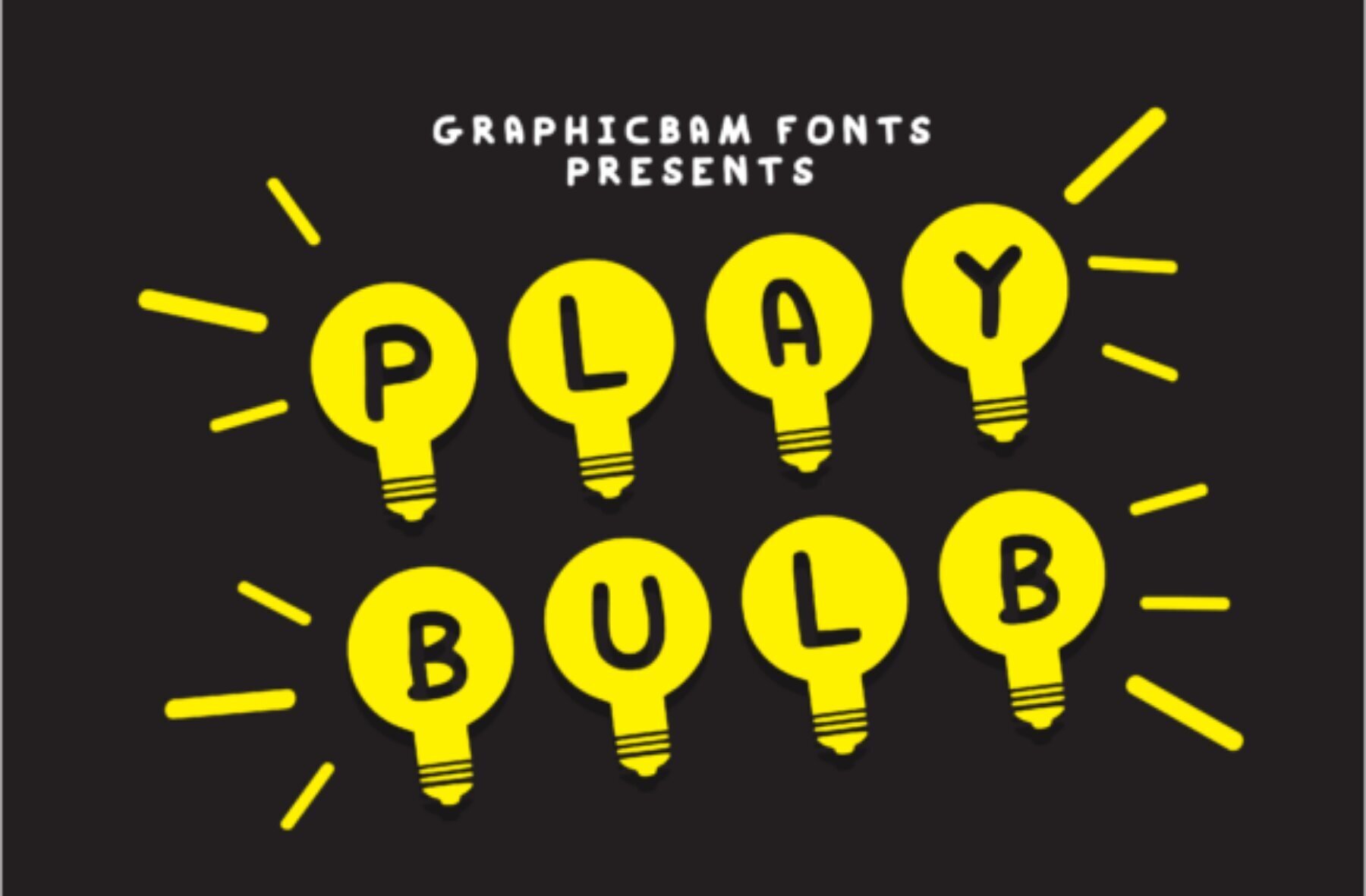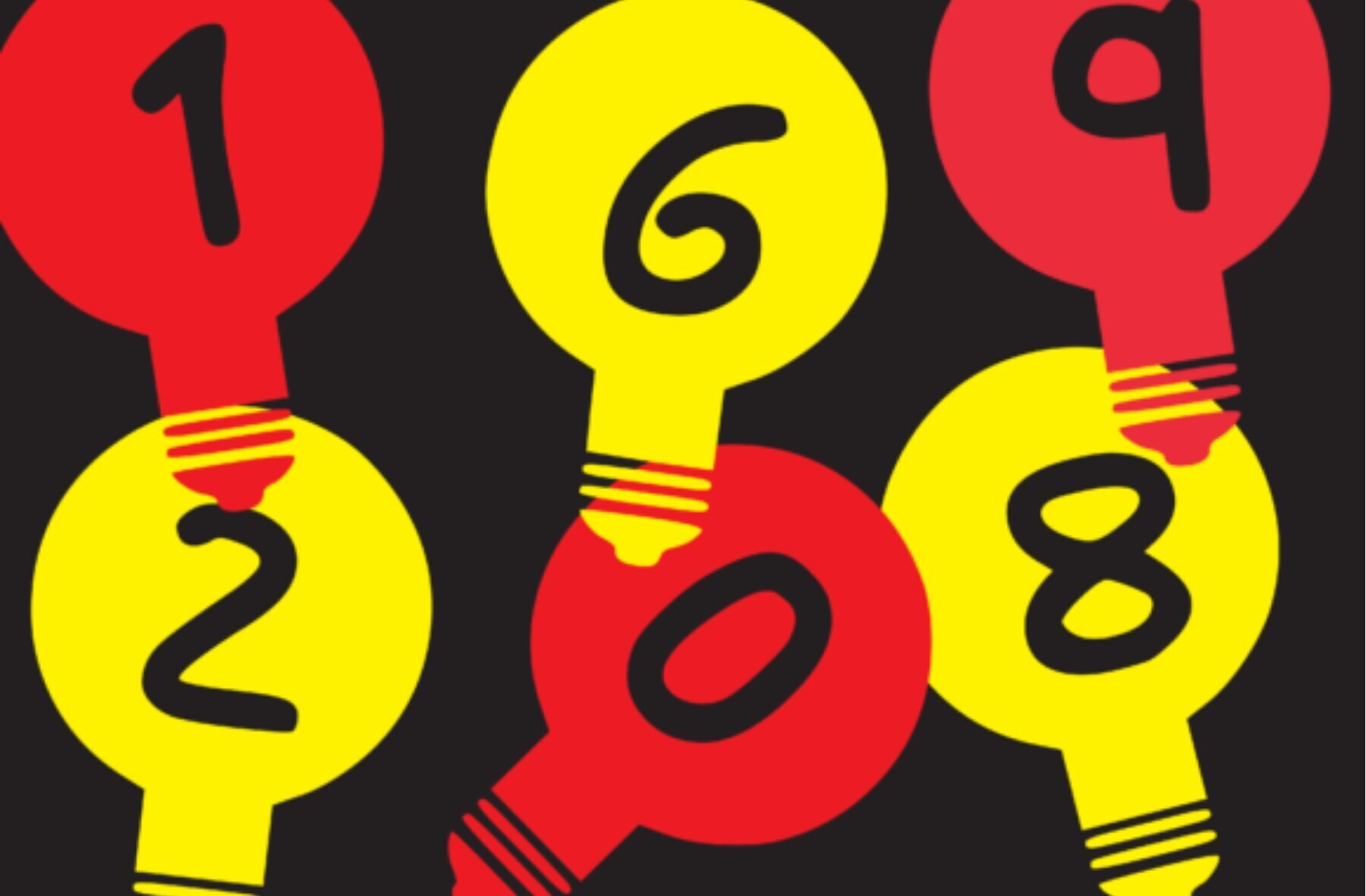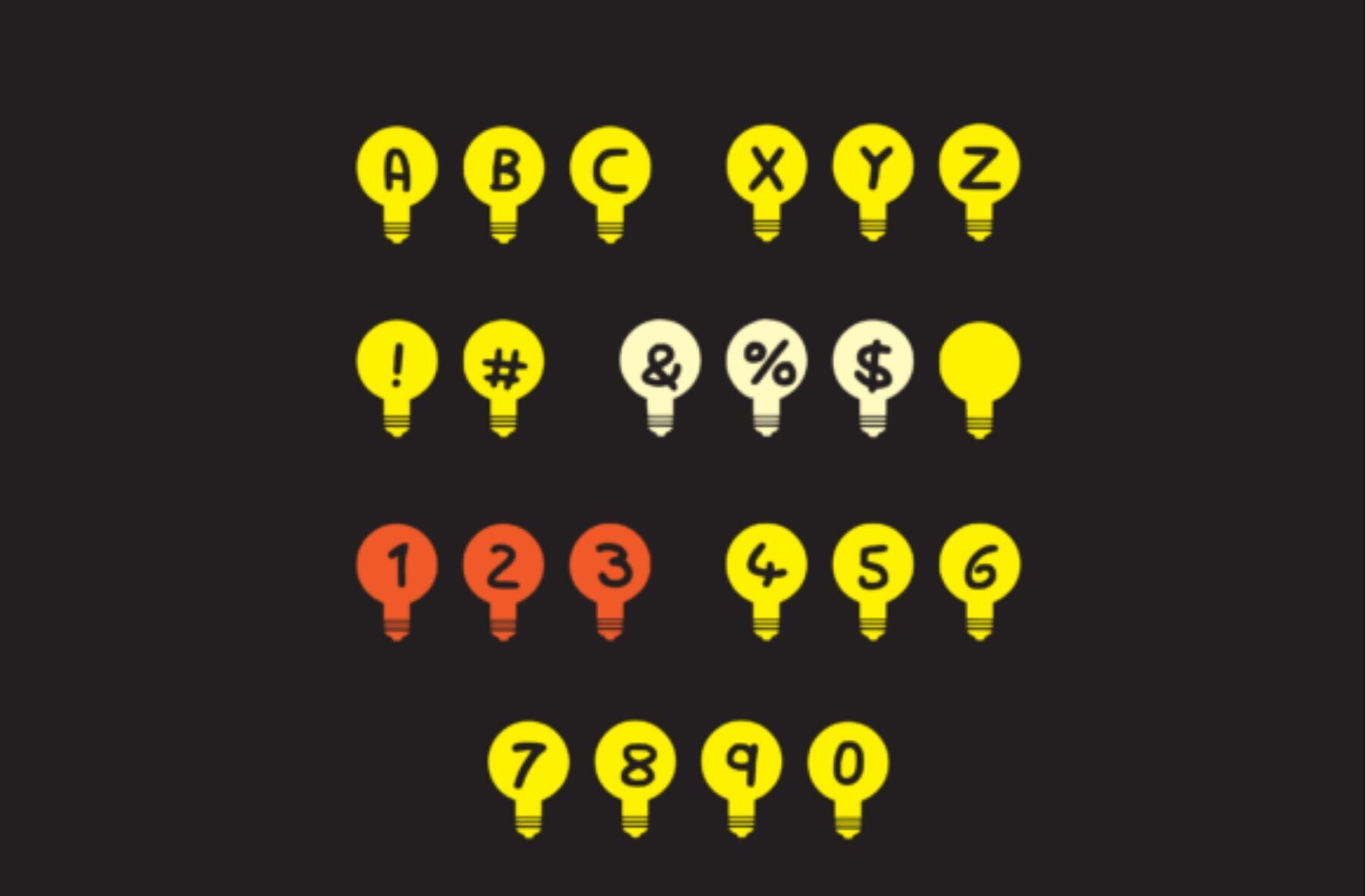
Play Bulb Font
Play Bulb
Play Bulb is a decorative font that effortlessly brings joy and creativity to any children's project. With its playful and child-like aesthetic, this font is embellished with delightful bug illustrations, adding a touch of whimsy to your designs. Whether you're creating classroom materials or crafting kids' invitations, Play Bulb is the perfect choice to inspire imaginative exploration.Play Bulb: A Whimsical Font for Creative Kids' Projects